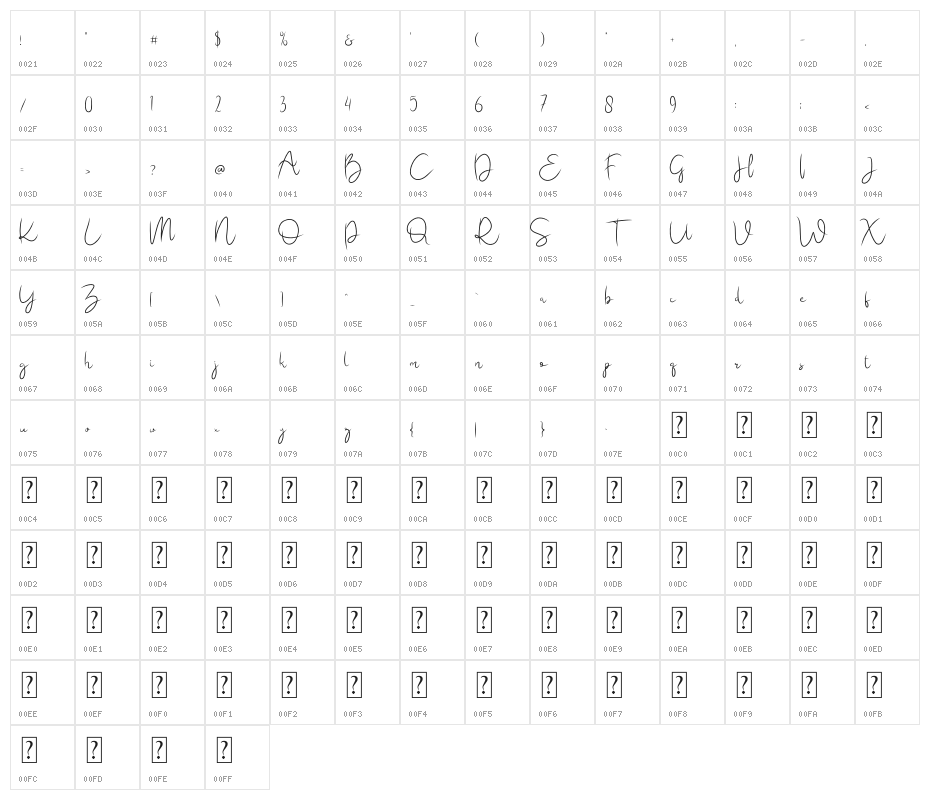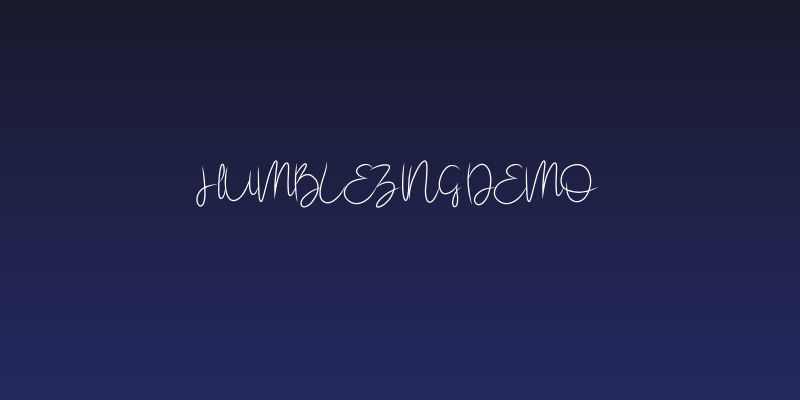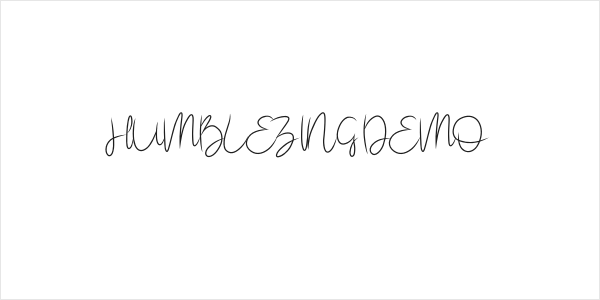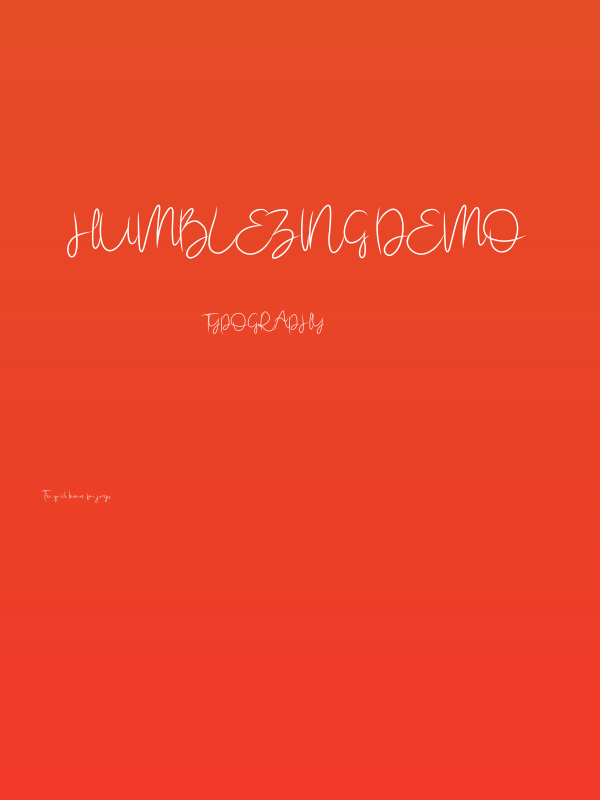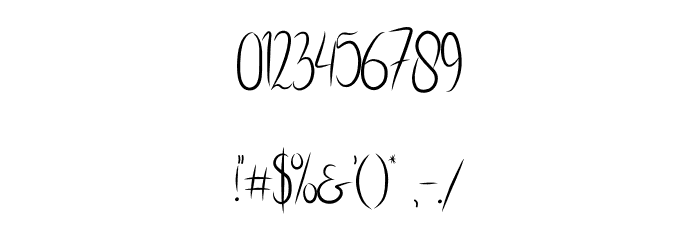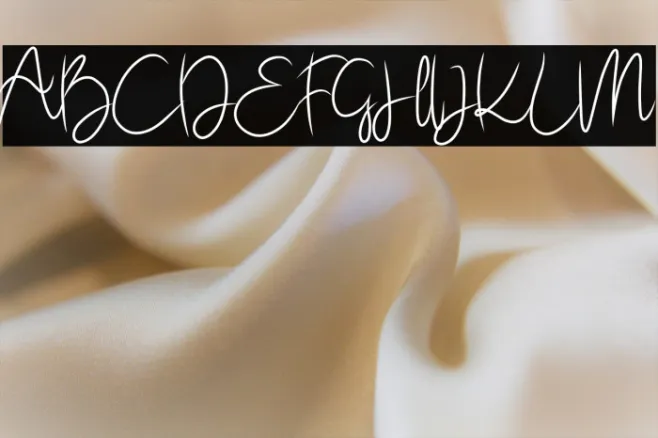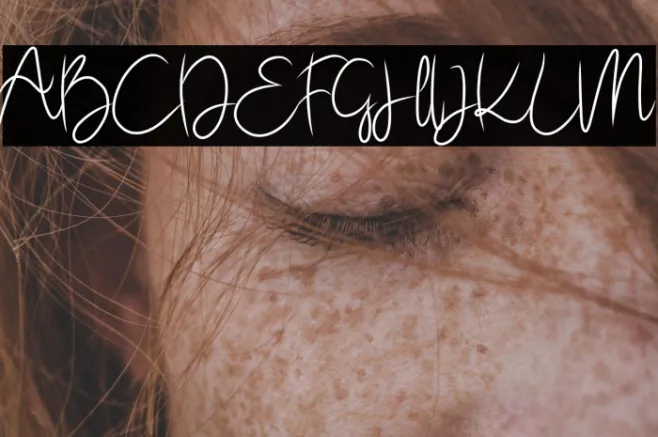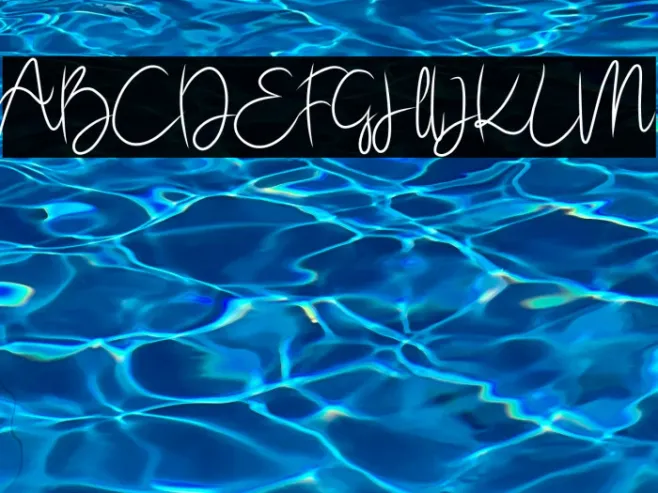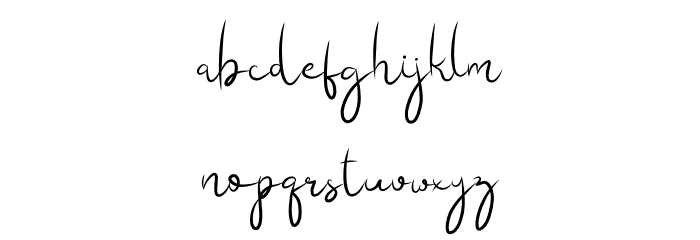
HUMBLEZING DEMO Font
HUMBLEZING DEMO Description
This font features a playful and whimsical handwritten style, characterized by its flowing, cursive letters with a slight slant. The uppercase letters are bold and expressive, with exaggerated loops and curves, while the lowercase letters maintain a more delicate and consistent form. The numbers and special characters follow the same playful aesthetic, making the font suitable for creative and informal applications. The overall design exudes a sense of fun and creativity, perfect for projects that require a personal touch.
| Proposed Projects | Ideal for greeting cards, invitations, personal branding, and creative projects that require a personal and informal touch. |